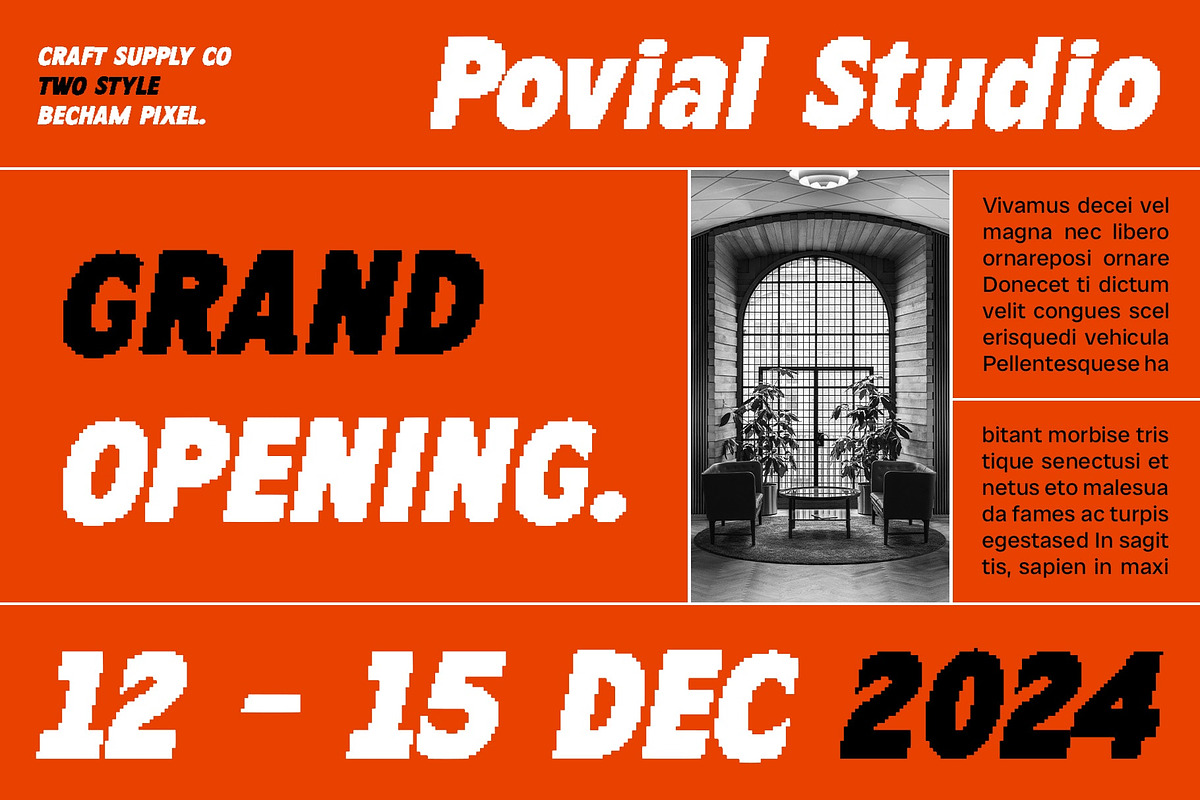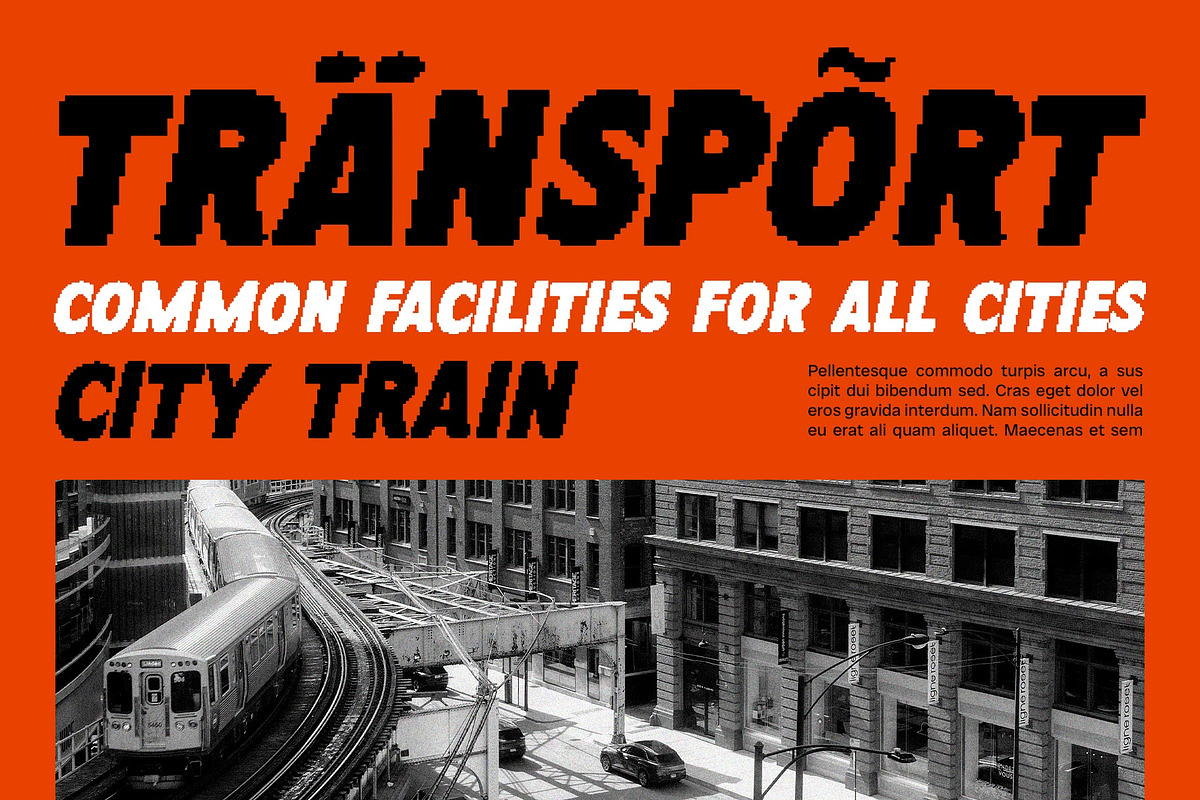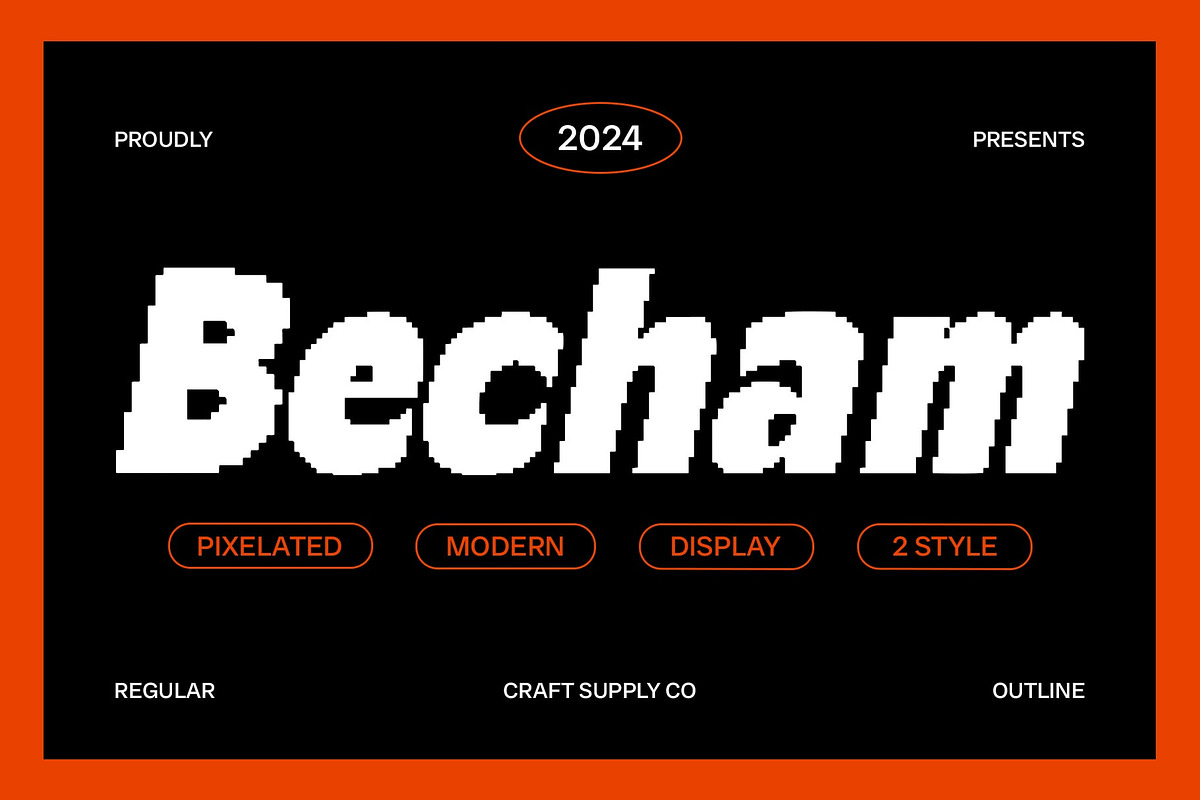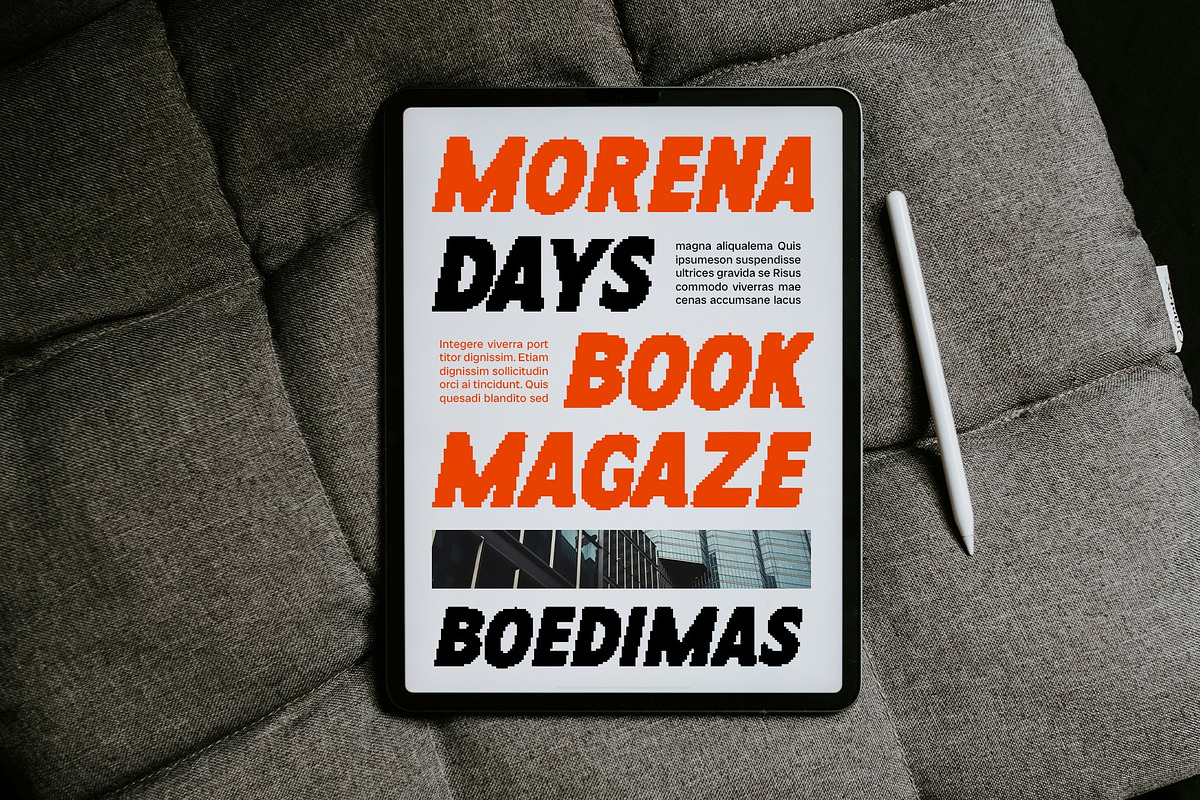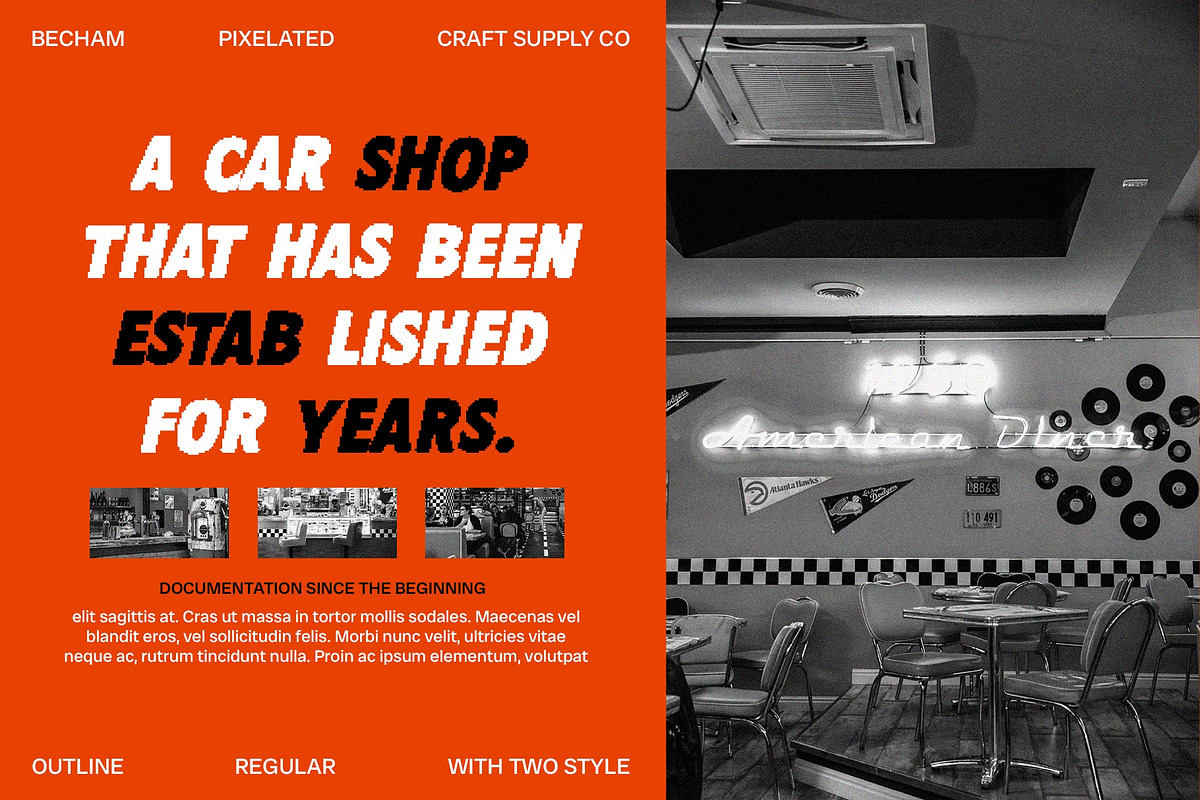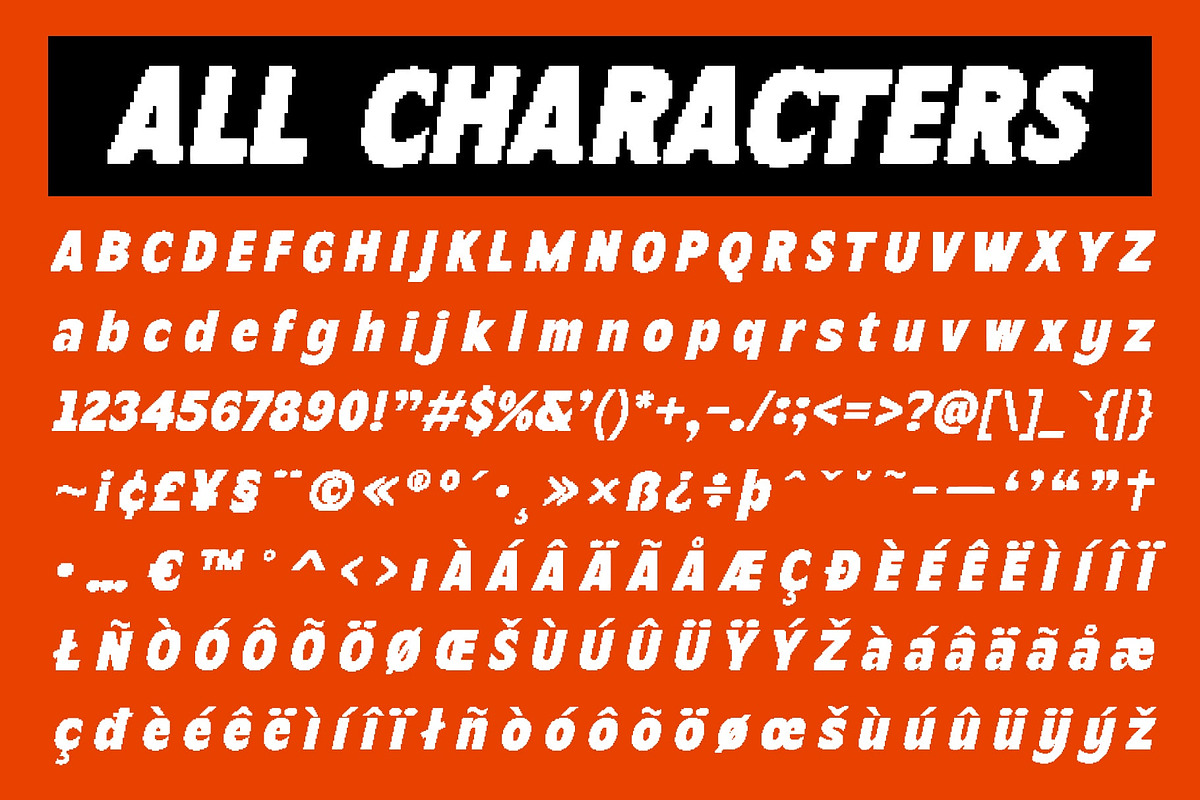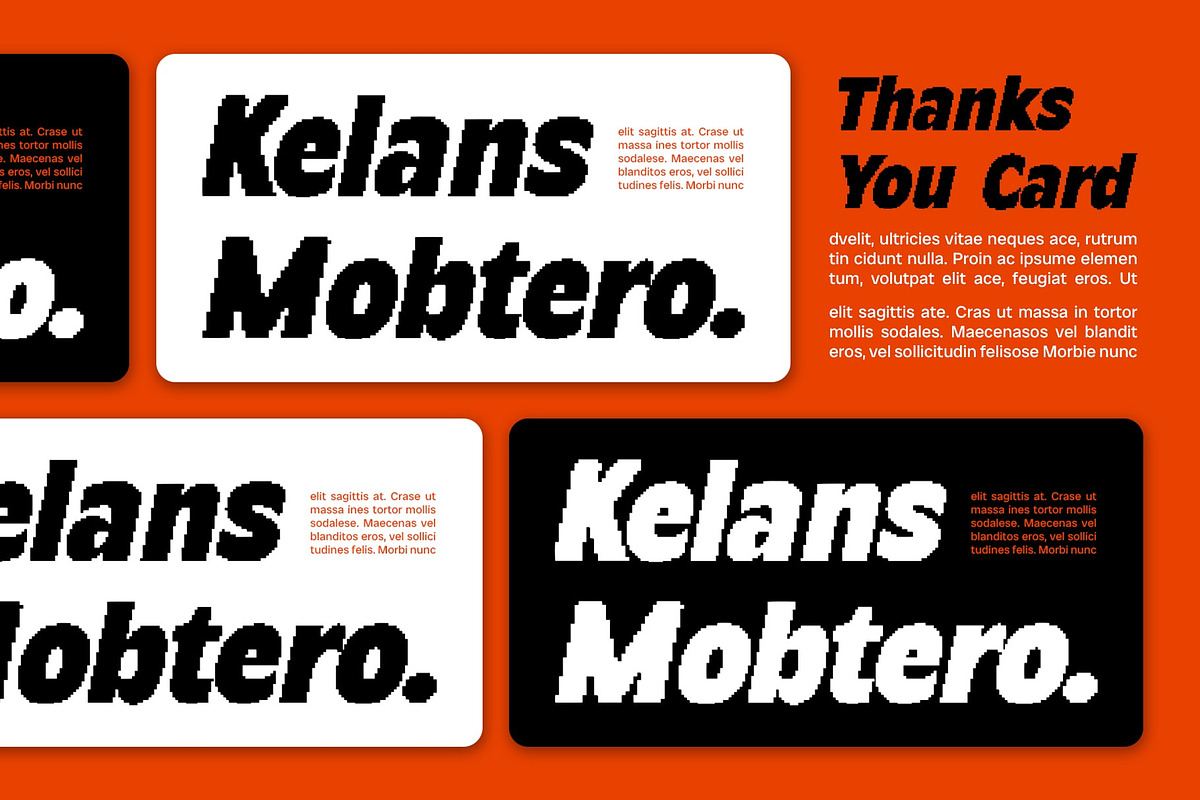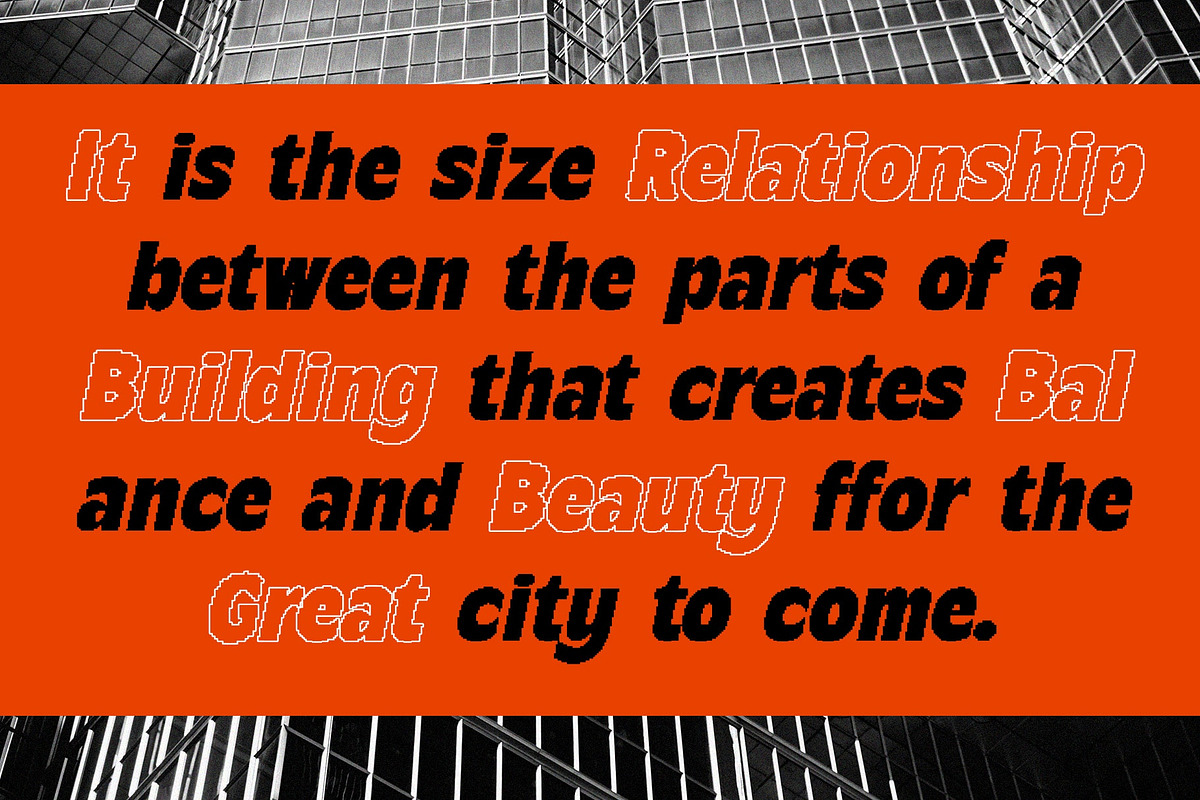
Becham Pixel
Becham Pixel: Bold Modern Sans Serif Font with Pixel Effect
Bold Design with Pixel Detail Becham Pixel is a modern bold sans serif font that combines a bold design with a unique pixel effect. Its robust and powerful appearance emphasizes strength and authority, while the pixel effect adds a modern and experimental touch, creating a font that stands out in any design.
Ideal for Bold and Innovative Design Applications Perfect for design applications requiring a bold and innovative appearance, Becham Pixel is ideal for corporate logos, promotional posters, and other digital designs aiming to highlight distinctive and striking characteristics.
Versatile Usage in Digital Design With its bold design and pixel effect, Becham Pixel offers versatility in various digital design projects. Whether creating impactful corporate identities or eye-catching promotional materials, this font adds a modern and experimental flair to your designs, ensuring they stand out with a unique visual appeal.
- Becham Pixel Regular
- Becham Pixel Outline